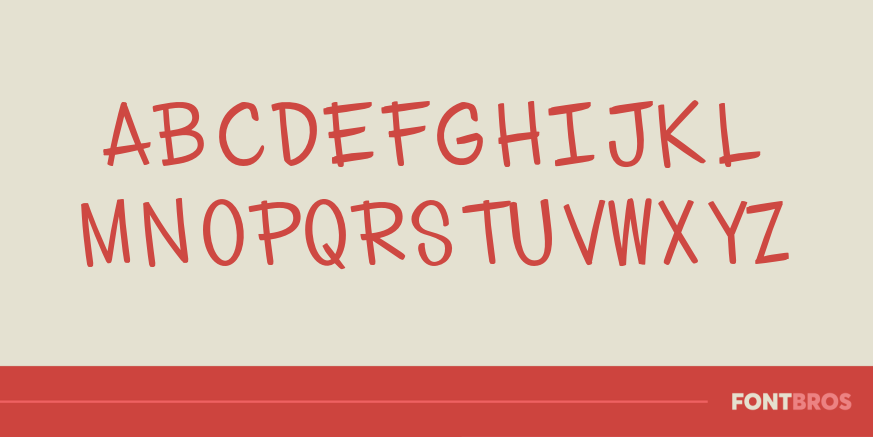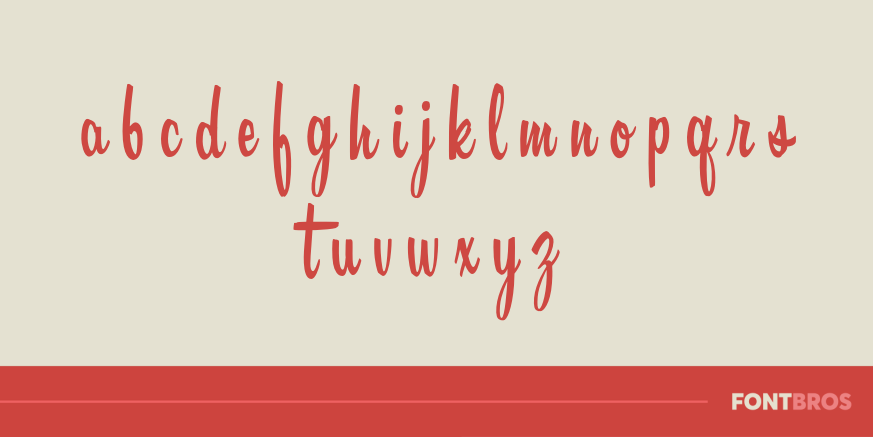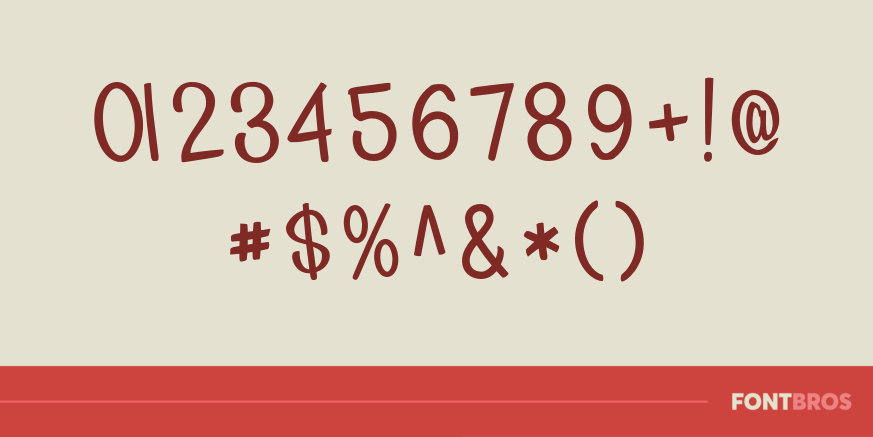
Mister Television
Font Family by Font Diner
It's BIG! It's FUN! It's full of personality and it's only on after the kiddos are in bed! It's Mister Television, the fabulous retro brush script sure to shine throughout the evening!
More About Mister Television
Mister Television is a font family by Font Diner. The page describes it as a retro brush script that is big, fun, and full of personality.
Font Bros lists Mister Television as a single-style family. Its styling and tags connect it with retro, casual script, and wacky design directions.
What is Mister Television used for?
Based on the page categories and tags, Mister Television suits fun and retro-focused design work, especially projects looking for a casual script style with 1940s, 1950s, or 1960s character.
Key features
• Font family by Font Diner
• Includes 1 font style
• Retro brush script style
• 258 glyphs shown on the product page
• Tagged with 1940s, 1950s, and 1960s
• Associated with casual script, fun, retro, and wacky styles
• Listed with related categories including Fun/Wacky Fonts, Retro (1936-1965) Fonts, and Scripts: Casual Fonts
Mister Television FAQs
Who makes Mister Television?
Mister Television is by Font Diner.
How many styles are included in Mister Television?
The product page lists 1 font style.
What kind of font is Mister Television?
The page describes it as a retro brush script.
How many glyphs does Mister Television include?
The product page shows 258 glyphs.
What style references are associated with Mister Television?
Its tags include 1940s, 1950s, 1960s, casual script, fun, retro, and wacky.